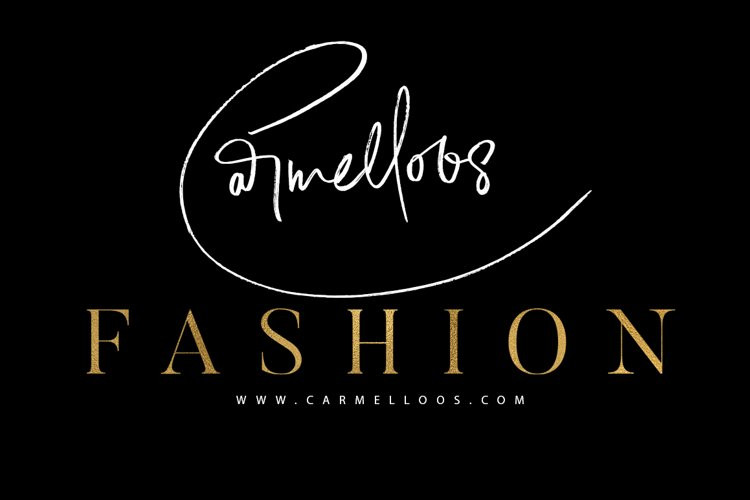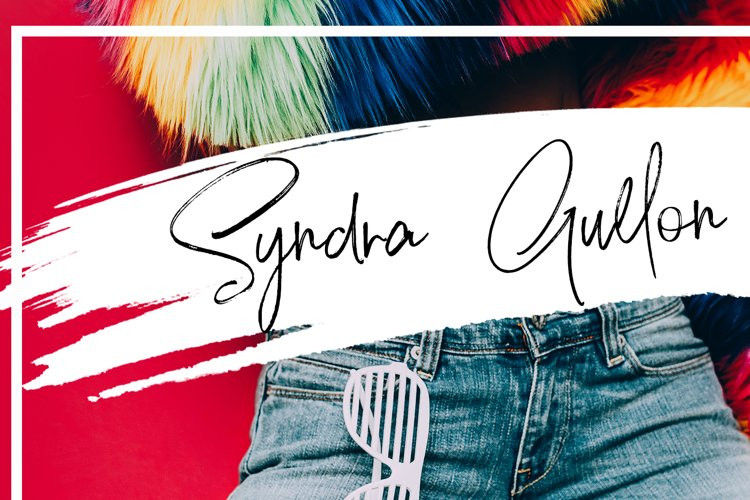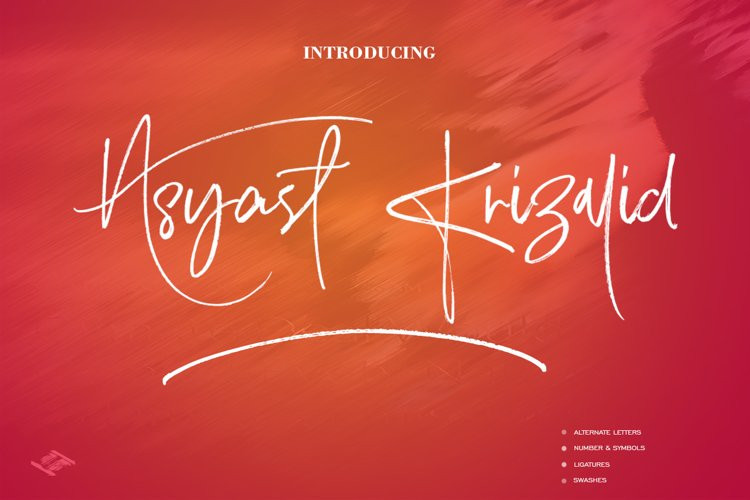
Asyast Krizalid Font
Asyast Krizalid FontAsyast Krizalid Brush Script Font:Asyast Krizalid Brush Script Font has almost an unique design that posseses elegancy and charm. Fluidity of ink and hardness of brush created the unique characteristics of the font. You can see the harmony of the curls among the letters. With Asyast Krizalid Brush Script Font , you can make your projects, brands, presentation of your collections, magazines, logos, packagings and websites be eye-catching with pleasure.